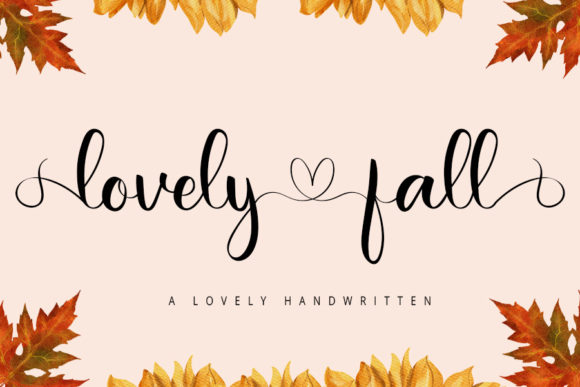
Journey into the realm of elegance and timeless beauty with Lovely Fall, a script font family that will add a touch of sophistication to your creative projects. Its delicate hairlines and graceful curves evoke a sense of romance and charm, making it the perfect choice for wedding invitations, stationery art, and social media posts that demand attention.
With Lovely Fall, you'll have access to a world of creative possibilities. Imagine the allure of wedding invitations adorned with the flowing script of Lovely Fall, captivating your guests with its enchanting aesthetic. Create stationery art that exudes elegance, leaving a lasting impression on your recipients. Design social media posts that stand out from the crowd, grabbing the attention of your followers with their refined style.
Lovely Fall is more than just a font; it's an artistic tool that empowers you to express your creativity in countless ways. Whether you're a seasoned designer or just starting your creative journey, Lovely Fall is the perfect companion for your artistic endeavors. Its versatility extends to business cards, logos, branding materials, and packaging design, adding a touch of sophistication to your professional identity.
Indulge in the beauty of Lovely Fall's PUA encoding, which grants you effortless access to a treasure trove of glyphs and swashes. Experiment with various combinations to create captivating designs that reflect your unique style. Lovely Fall's delicate strokes and graceful curves will elevate your creative projects, adding a touch of magic to every element.
Embrace Lovely Fall, the script font family that embodies elegance, grace, and timeless beauty. Its enchanting style will captivate your audience, leaving a lasting impression that lingers in their hearts and minds. Download Lovely Fall today and unlock the gateway to a world of creative possibilities.